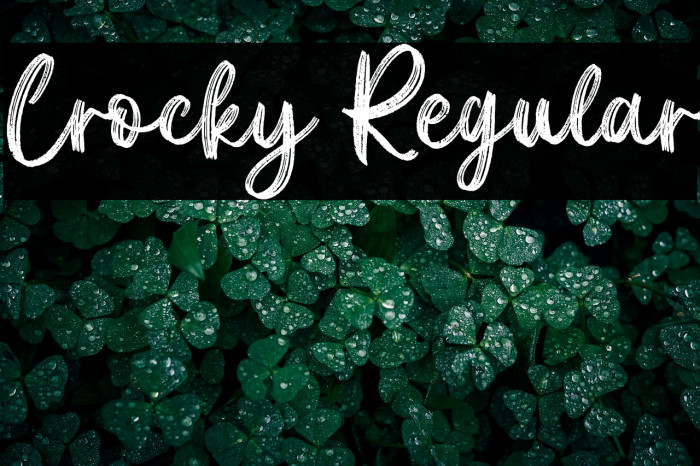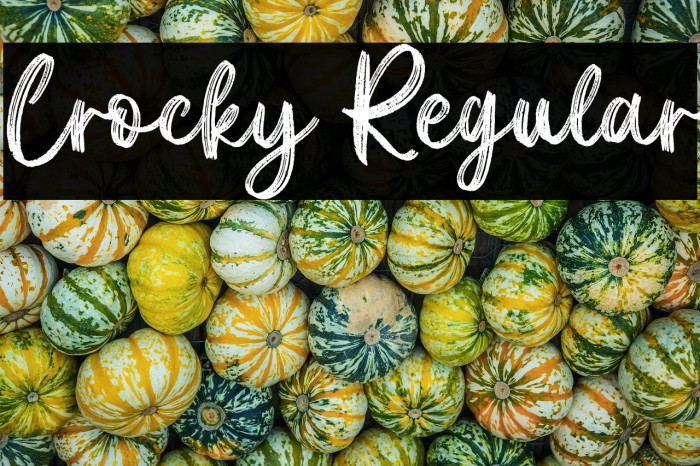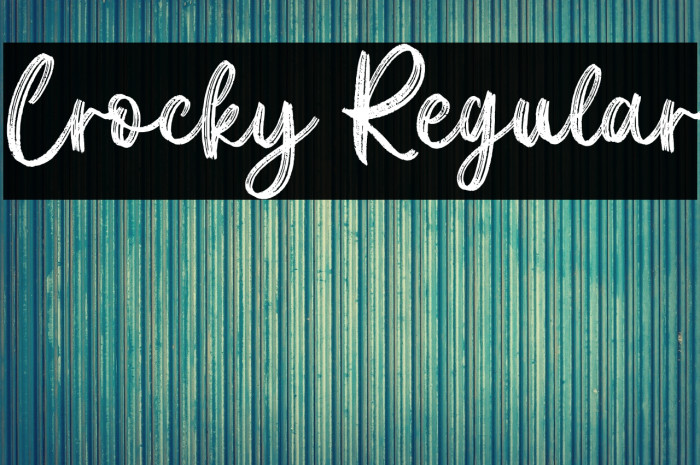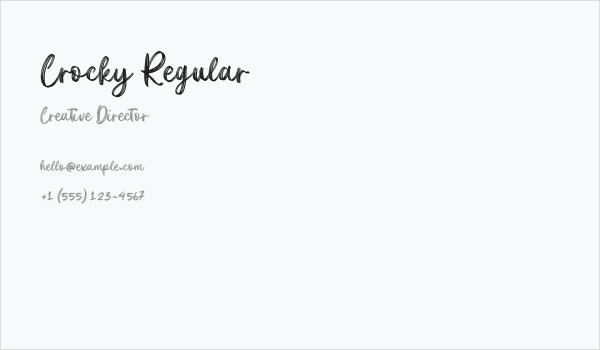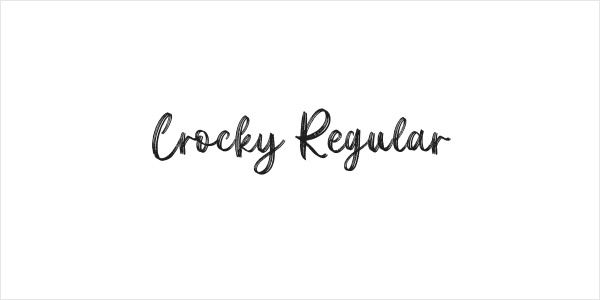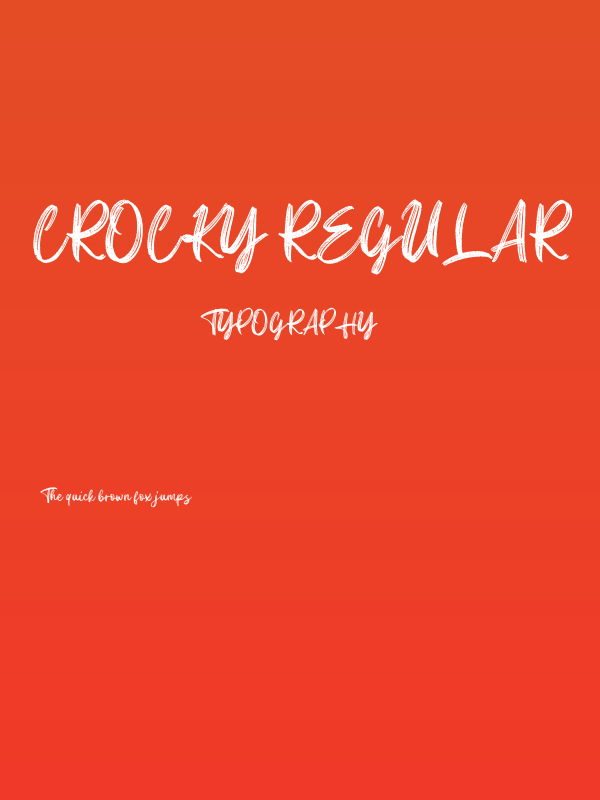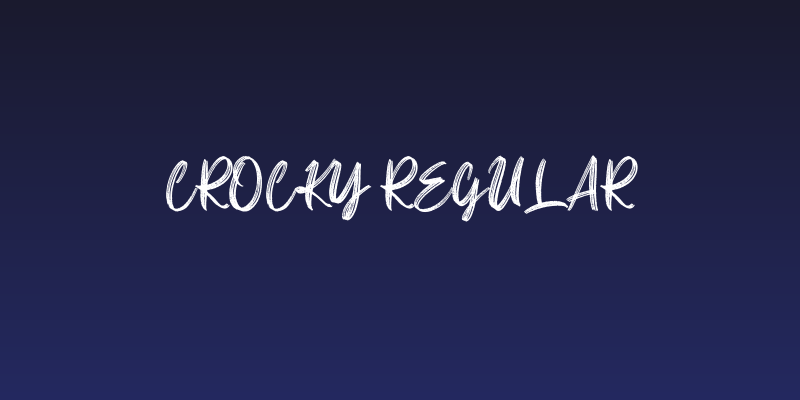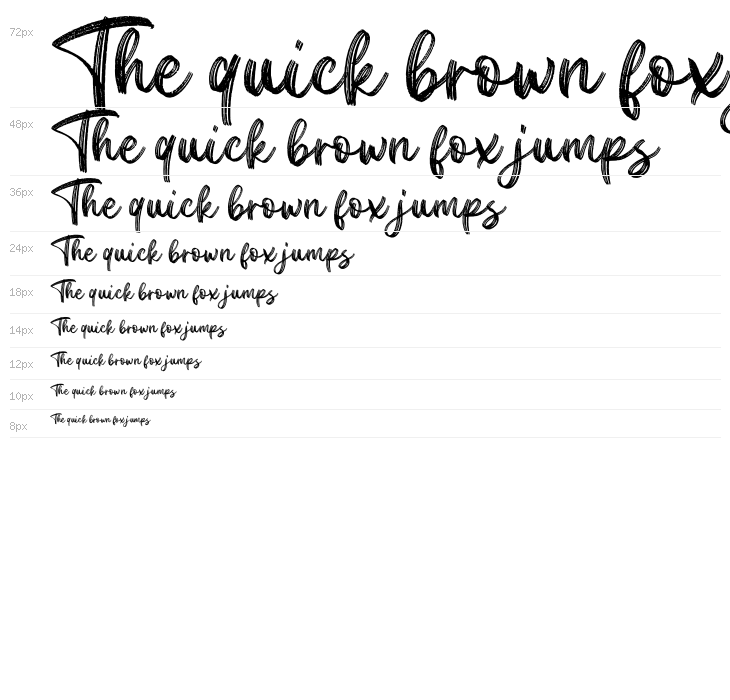
Crocky Regular Font
Crocky Regular Description
This font exudes a dynamic and energetic style, characterized by its bold, brush-like strokes that give it a hand-drawn appearance. The letters are slightly slanted, adding a sense of motion and fluidity. The uppercase and lowercase letters maintain a consistent style, with the uppercase being slightly larger and more pronounced. Numbers and special characters are crafted with the same brush-like texture, ensuring uniformity across all glyphs. The overall impression is one of creativity and expressiveness, making it ideal for projects that require a personal touch.
| Proposed Projects | Ideal for creative projects such as posters, invitations, branding, and social media graphics where a personal and artistic touch is desired. |